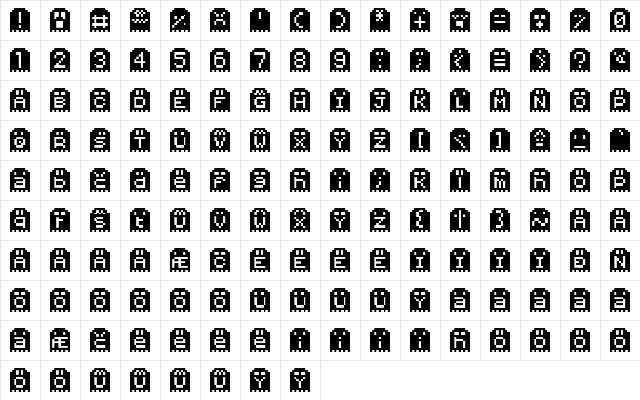
Spoopy Ghost Pixels Regular
Design Context for Spoopy Ghost Pixels Typeface
Spoopy Ghost Pixels is rooted in pixel-grid construction, making it a natural fit for game UI, retro computing aesthetics, and digital nostalgia projects.
A natural choice for retro game titles, chiptune music branding, 8-bit UI, and digital nostalgia projects.
Pro Tip: Pair Spoopy Ghost Pixels with flat colour palettes and simple geometric UI elements to reinforce its digital aesthetic.